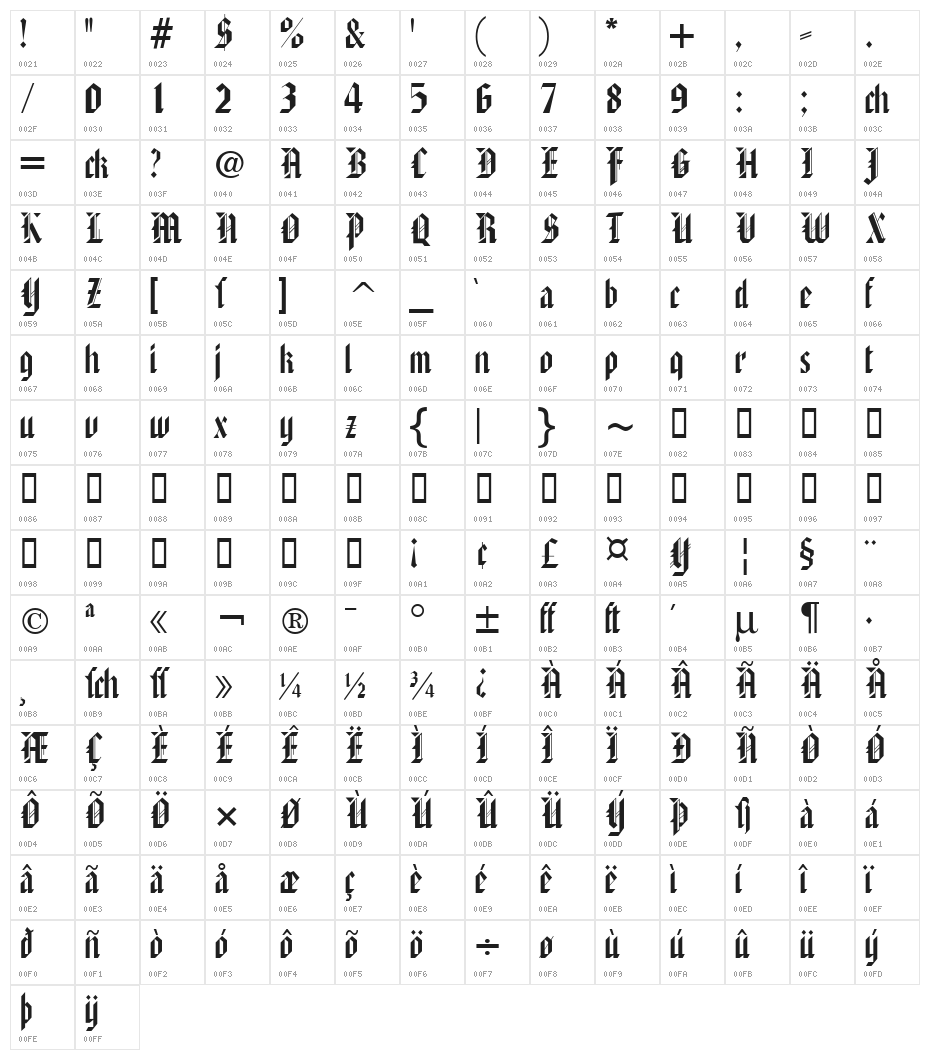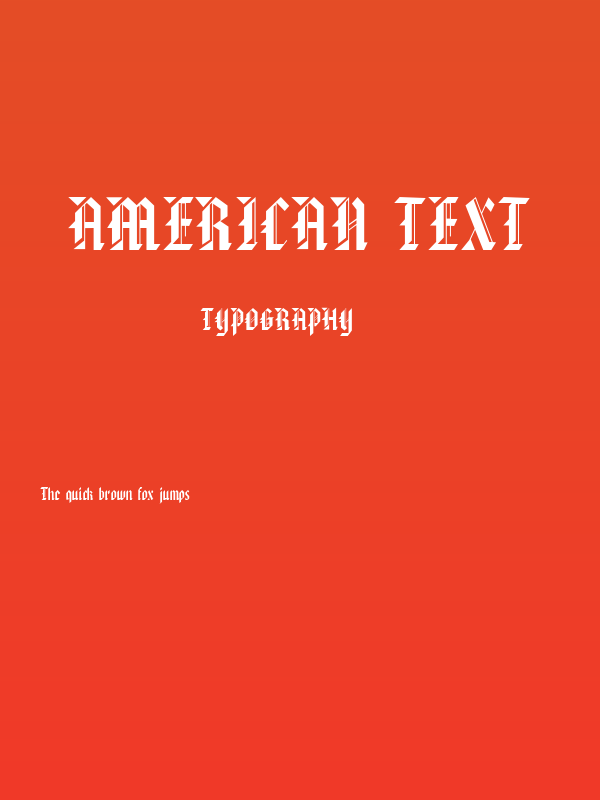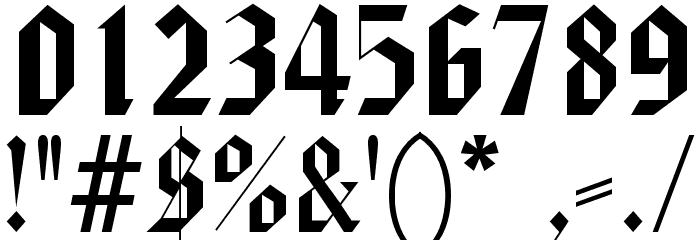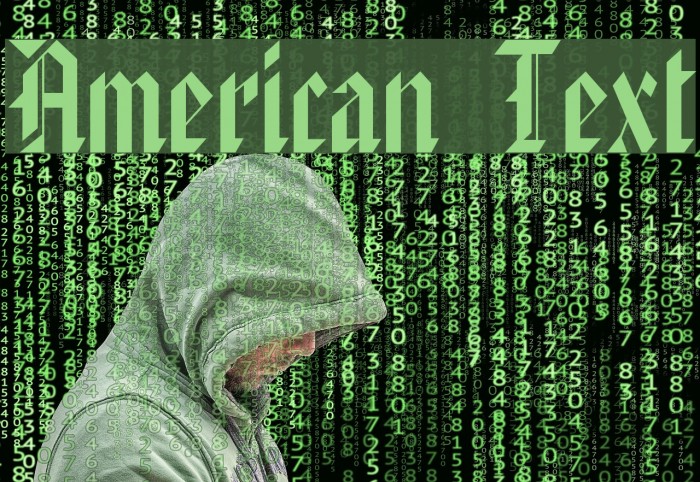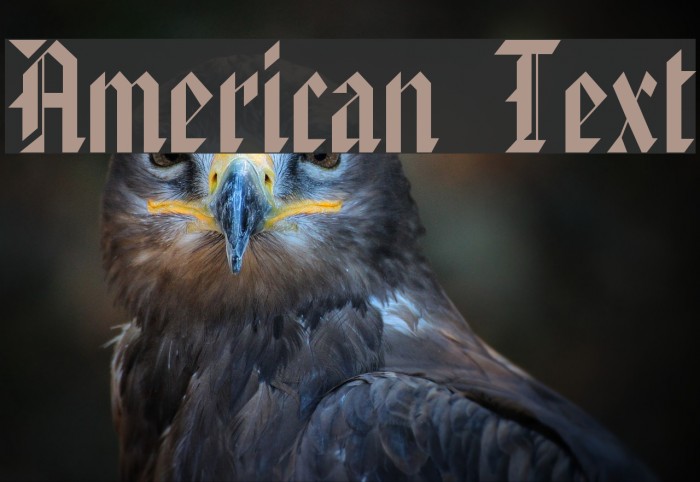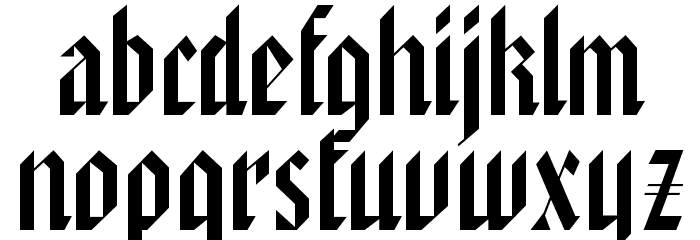
American Text Font
American Text Description
This font features a bold and dramatic style, reminiscent of traditional blackletter typefaces. It has sharp, angular lines and a strong presence, making it ideal for impactful designs. The uppercase letters are particularly ornate, with intricate detailing that adds a sense of elegance and authority. The lowercase letters maintain a consistent style, ensuring readability while preserving the font's distinctive character. Numbers and special characters are crafted with the same attention to detail, providing a cohesive look across all elements. This font is well-suited for projects that require a historical or gothic aesthetic, such as posters, logos, and branding materials.
| Overall Style | Gothic, Historical |
| Use Case | Headlines, Logos, Decorative |
| Proposed Projects | Ideal for posters, logos, branding materials, and any design requiring a historical or gothic aesthetic. |